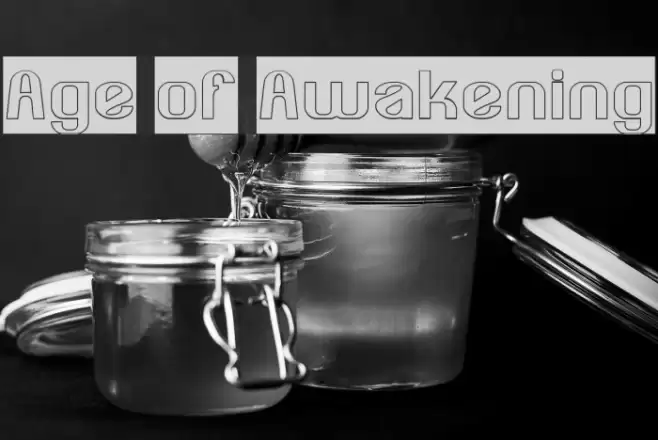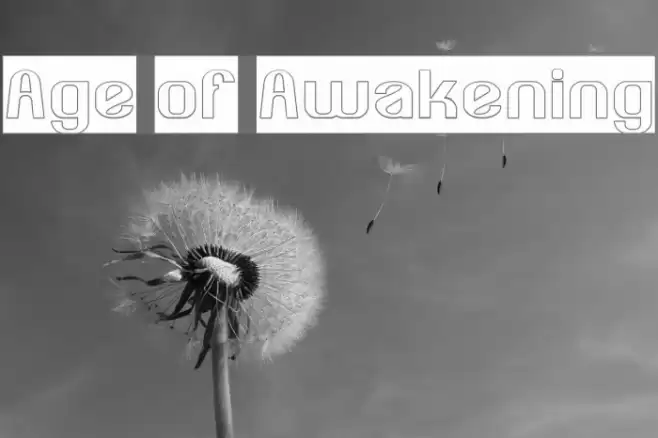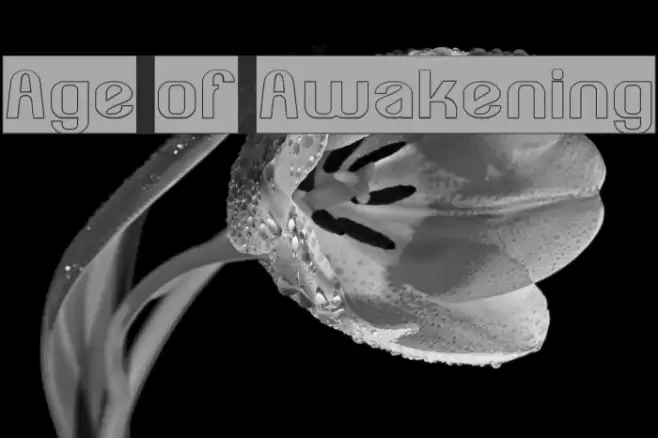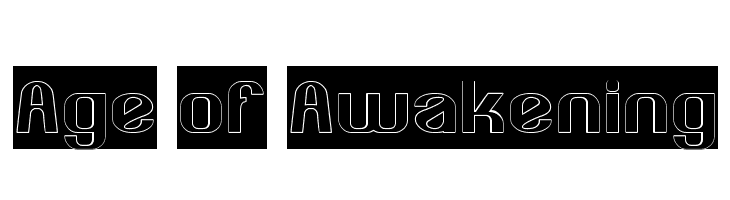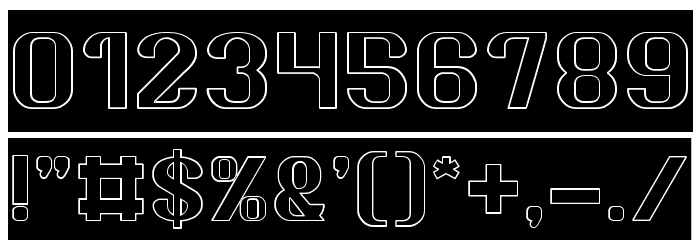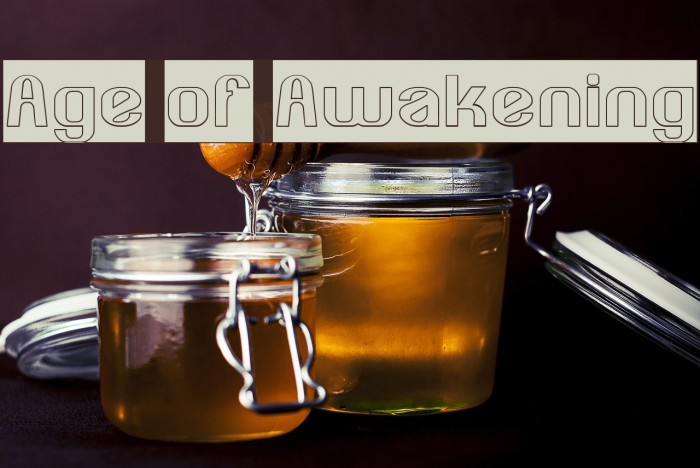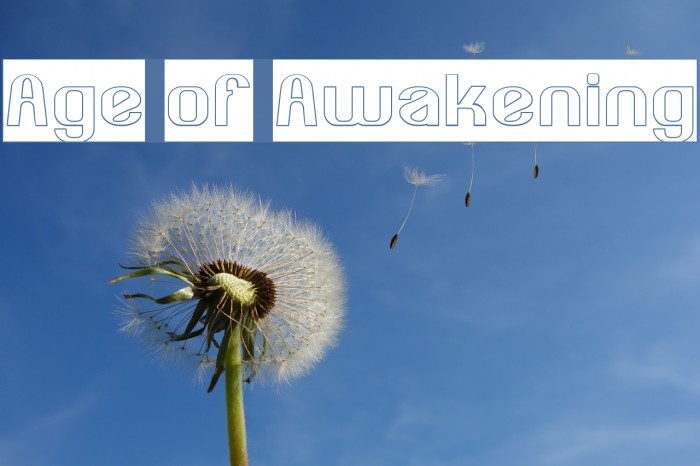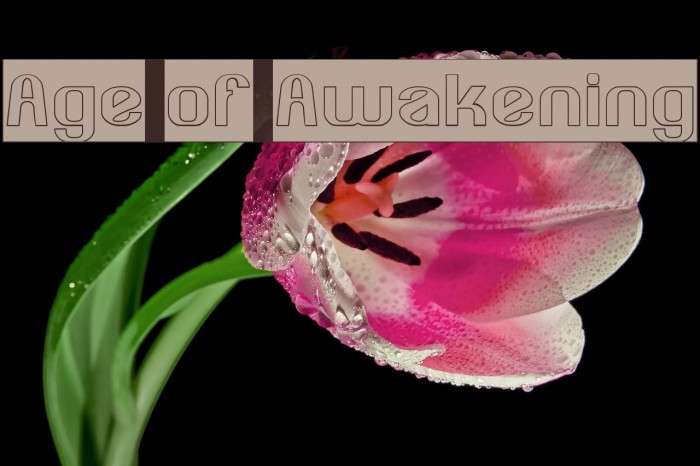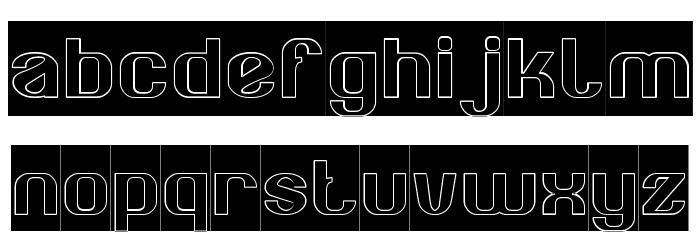
Age of Awakening Font
Age of Awakening Description
This font features a bold, outlined style that gives it a striking and modern appearance. The characters are designed with a consistent thickness, creating a uniform look across both uppercase and lowercase letters. The geometric shapes and clean lines contribute to a futuristic and digital aesthetic, making it ideal for projects that require a contemporary touch. The numbers and special characters maintain the same design principles, ensuring cohesion throughout any text. The font's open and airy design allows for excellent readability, even at smaller sizes, while the outlined nature adds a unique flair that can make any text stand out.
A bold, outlined font with a modern and geometric style from Uncategorized fonts.